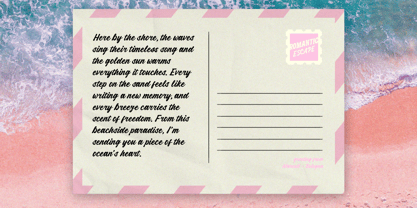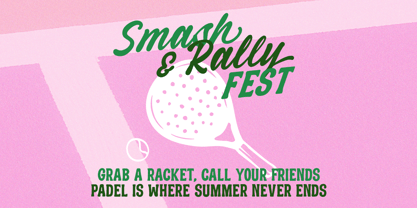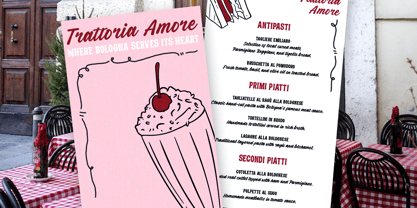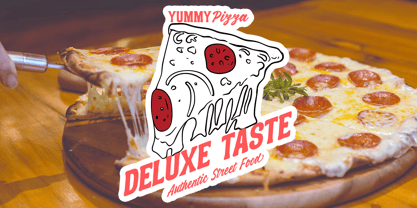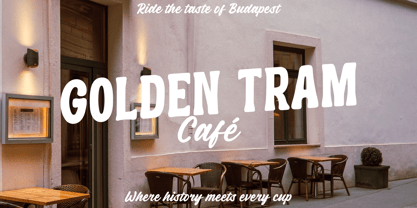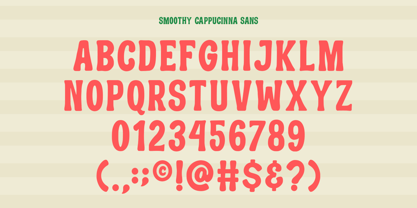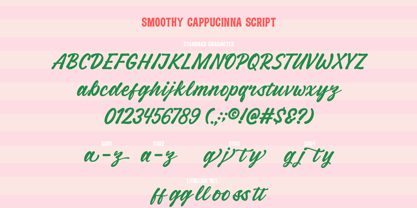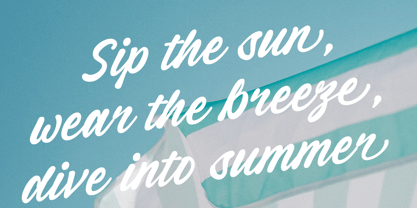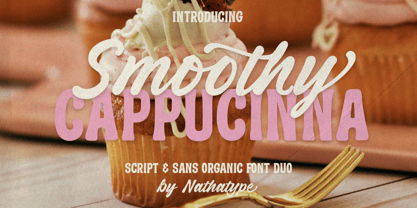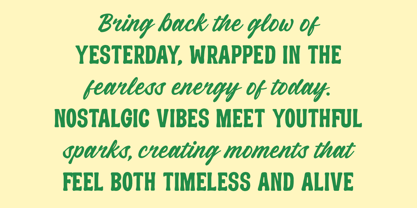
Smoothy Cappucinna
by Nathatype
The Smoothy Cappucinna Font Family was designed by Donis Miftahudin and published by Nathatype. Smoothy Cappucinna contains 2 styles and family package options. More about this family
Smoothy Cappuccinna is a stylish font duo that blends the warmth of script with the confidence of bold sans serif design. This elegant pairing includes a smooth, flowing script font inspired by natural handwriting and uppercases sans serif font crafted with a fairly bold weight for strong, balanced contrast. Together, they create the perfect harmony of softness and structure, making your typography look effortlessly modern and beautifully cohesive. In addition, enjoy the features here. Features: Ligatures Stylistic Sets Multilingual Supports PUA Encoded Numerals and Punctuations Smoothy Cappucinna fits in branding, packaging, quotes, invitations, logos, posters, and many more designs. Find out more ways to use this font by taking a look at the font preview. Thanks for purchasing our fonts. Hopefully, you have a great time using our font. Feel free to contact us anytime for further information or when you have trouble with the font. Thanks a lot and happy designing.